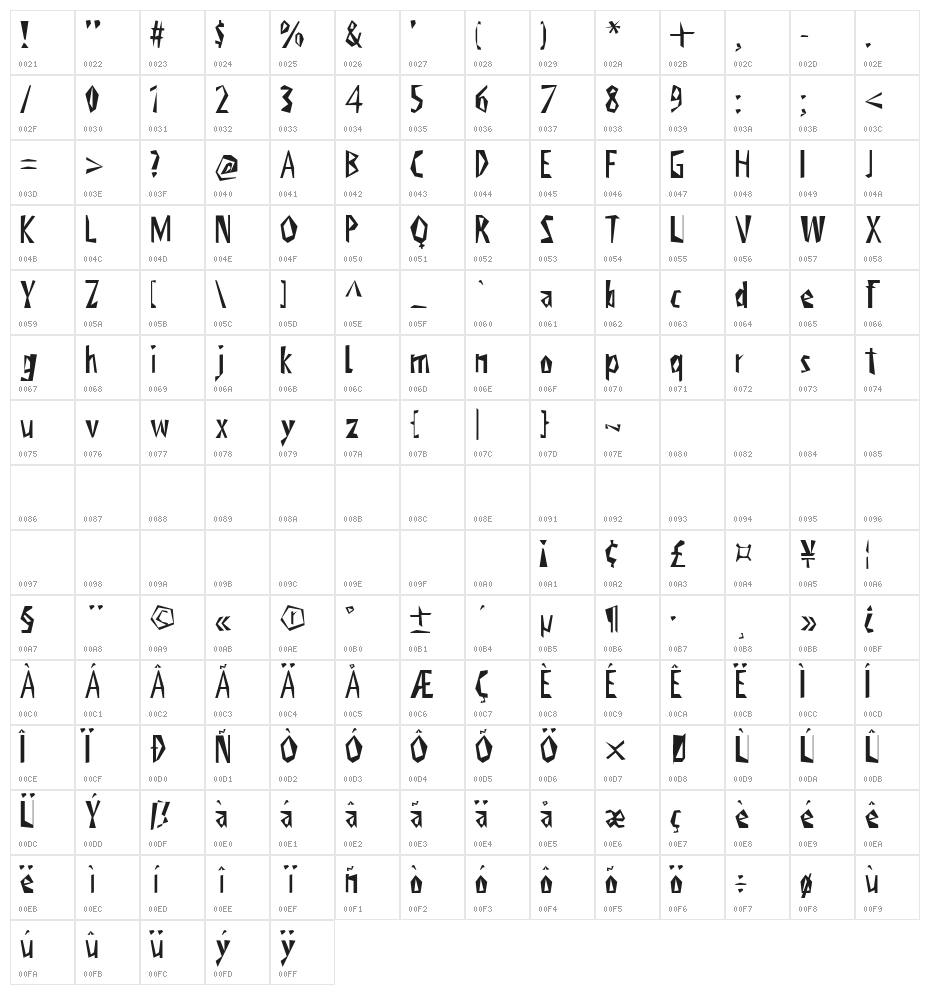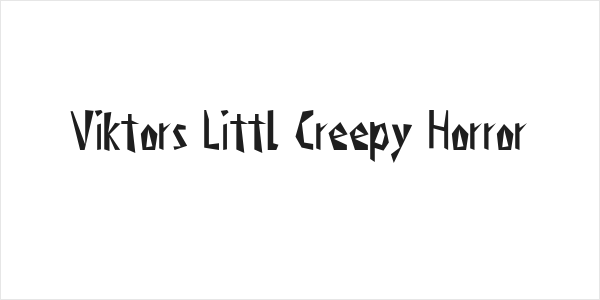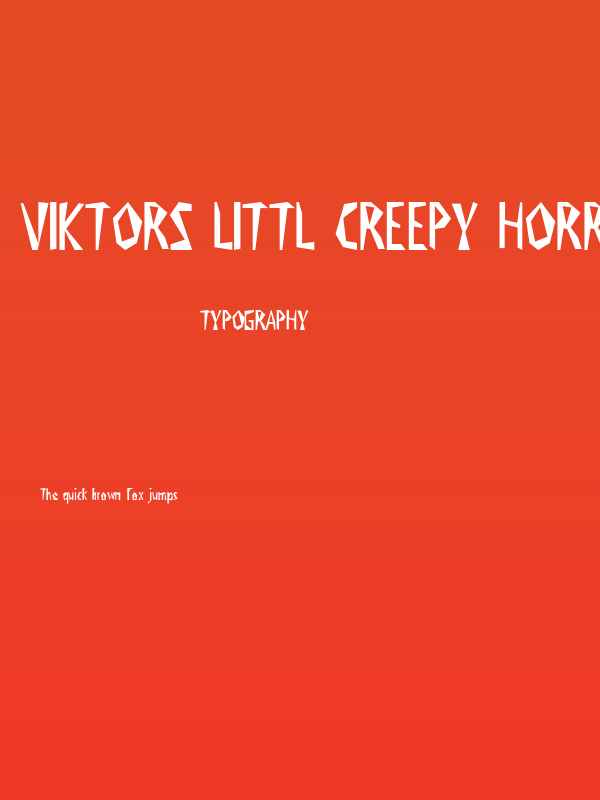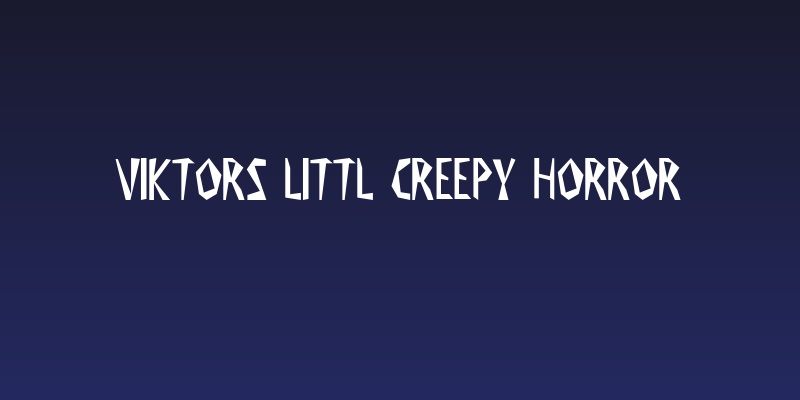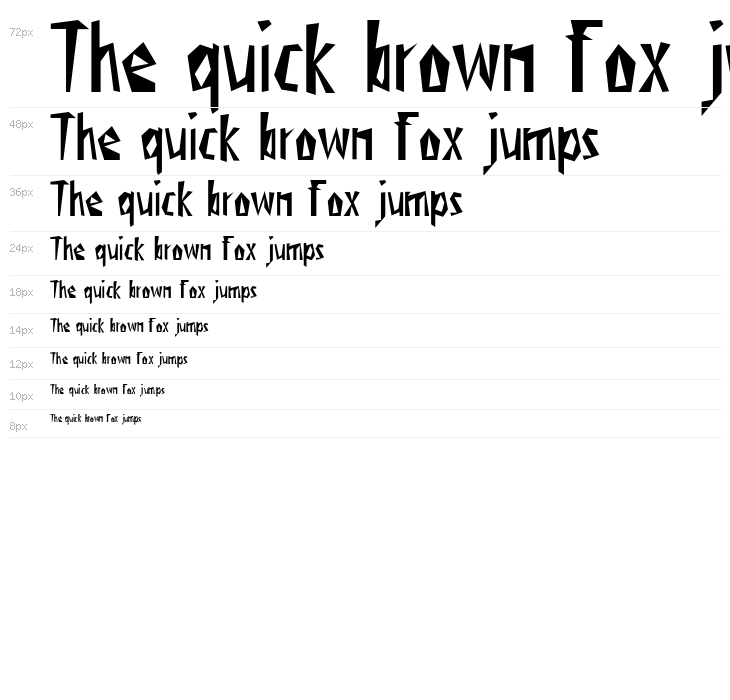
Viktors Littl Creepy Horror Font
Viktors Littl Creepy Horror Description
This font features a distinctly eerie and unsettling design, with sharp, jagged edges and irregular shapes that evoke a sense of horror and mystery. The uppercase letters are bold and angular, while the lowercase letters maintain a consistent style, adding to the overall creepy aesthetic. Numbers and special characters follow the same unsettling theme, making this font perfect for creating a chilling atmosphere. The unique design elements make it stand out, ideal for projects that require a touch of the macabre.
| Proposed Projects | Ideal for Halloween posters, horror movie titles, spooky event invitations, and themed merchandise. |